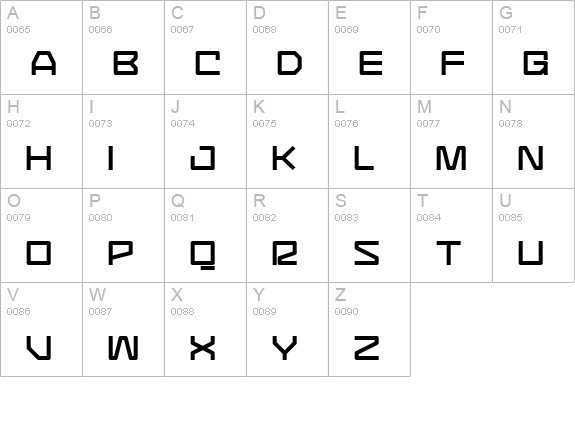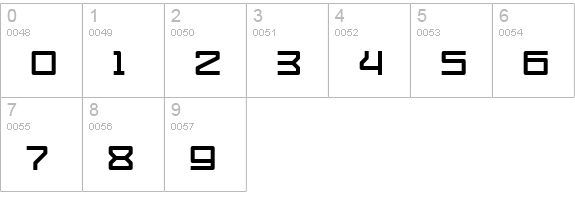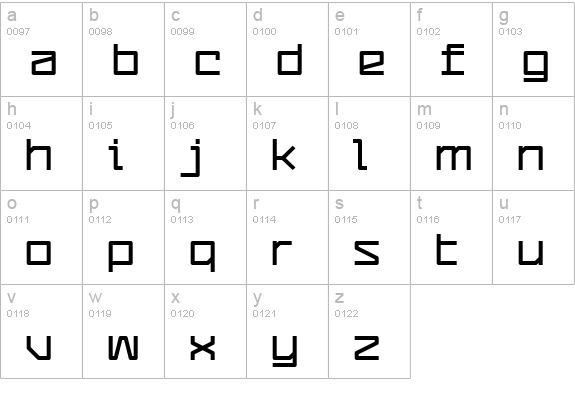
CommunityService UltraBold is an extra-heavy, attention-grabbing variant in the CommunityService typeface family \xE2\x80\x94 well suited to high-impact headlines, posters, and bold branding.
CommunityService UltraBold font is a bold and impactful typeface designed to make a statement. With its strong and sturdy characters, this font is perfect for headlines, titles, and any design projects that require a bold touch. The thick strokes and clean lines of CommunityService UltraBold exude confidence and create a powerful visual impact. What sets CommunityService UltraBold font apart is that it is available for free download at FontsMarket.com. This means you can easily access and use this striking font in your projects without any cost. Whether you're designing posters, banners, or social media graphics, CommunityService UltraBold will help you make a bold statement and captivate your audience. Download CommunityService UltraBold font for free today at FontsMarket.com and elevate your designs with its bold and impactful aesthetic.